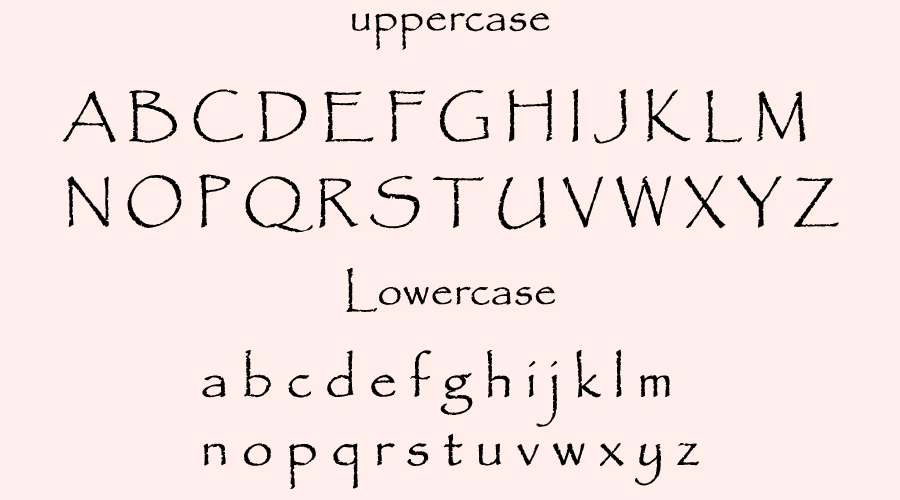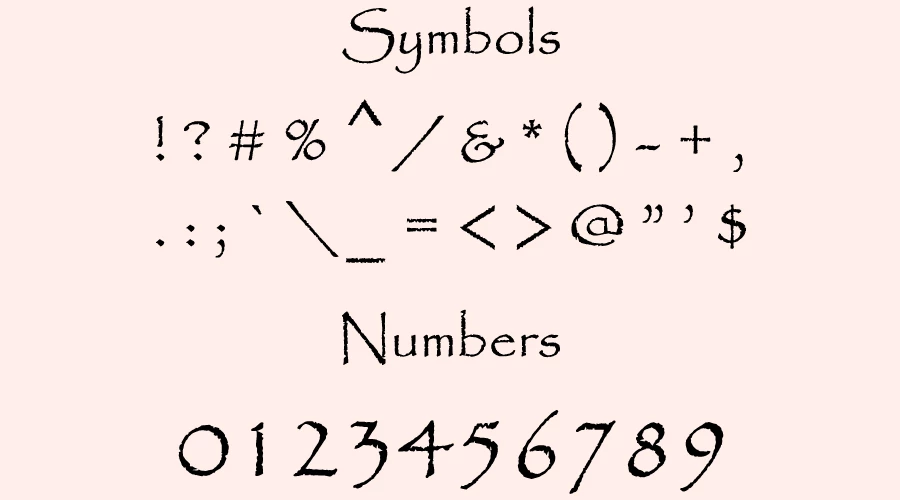
Today’s post will explain what papyrus font is. This popular roman typeface combines traditional roman letterforms with a highly skilled calligraphic look. Over the years, Papyrus has received much criticism for its overuse in graphic design and association with amateur design choices despite its ubiquitous presence. We will examine the history and characteristics of papyrus in this article. We’ll also look at its reception and use in popular culture, and what sets it apart from other font choices.
The History of Papyrus Font
Chris Costello, who was just 23 years old and fresh out of college, created Papyrus over a six-month period using a calligraphy pen and textured paper. He was inspired by his studies of the Bible. He also had the idea of what a font for English language texts would have looked like if written on papyrus 2000 years ago. The result was a highly distinctive and recognizable font that combined the elegance of a traditional Roman letterform with the hand-crafted look of highly skilled calligraphy. Costello sold the rights to Papyrus for just $750 and has since received “very low” royalty payments despite its inclusion on all personal computers using a Mac or Microsoft operating system.
The Characteristics of Papyrus
Papyrus is a calligraphy handwritten font. As a result of its rough edges, irregular curves, and horizontal strokes in its capitals, papyrus is well known for its unique appearance. This gives the font a distinctive, hand-written look that sets it apart from other traditional Roman letterforms. Despite its irregular appearance, Papyrus retains an elegant and refined sensibility, making it a valuable choice for many types of design projects.
What are some famous uses of the papyrus font?
This font can be used for book titles, posters, signs, and other places where the type will be large and highly visible. It can be used in film and historical-based television titles as well as merchandise.
Papyrus Use in Popular Culture And Controversy
Why do people not like papyrus? Despite its distinctive look, Papyrus has gained a reputation for being overused and misused in graphic design. It is especially evident in amateur and poor-quality design projects. This has led to criticism and ridicule, similar to the controversy surrounding the use of Comic Sans. A website named “Papyrus Watch” was even created to document the font’s ubiquity and misusage.
| Designer | Chris Costello |
| Classification | Handwritten, Calligraphy |
The Legacy of Papyrus
While Papyrus may have received its share of criticism over the years, it remains a timeless and versatile font that is still widely used and loved by designers. Whether you love it or hate it, there’s no denying the impact that Papyrus has had on the world of design. This is because it is one of the most recognizable typefaces of all time.
As a result, Papyrus is a unique and versatile typeface that has stood the test of time. Despite much criticism over the years, it remains one of the most popular and widely used fonts. You should definitely consider using Papyrus if you’re looking for a font that evokes a sense of history and tradition or simply want to stand out.
FAQs
What is the Papyrus font?
Ans: Papyrus is a calligraphy Handwritten font designed by Chris Costello.
What inspired the creation of the Papyrus font?
Ans: Chris Costello was inspired by his studies of the Bible and the idea of what a font for English language texts would have looked like if written on papyrus 2000 years ago.
Where has the Papyrus font been used?
Ans: The Papyrus font has been used in numerous TV show opening credits, including Medium and Eureka! It was also used in James Cameron’s blockbuster movie Avatar and is widely used in Shakira merchandise, as well as hookah bars and off-brand tea companies.
Did Avatar use the Papyrus font?
Ans: Yes, it was also used in James Cameron’s blockbuster movie Avatar.
Why is the Papyrus font controversial?
Ans: Despite its distinctive look, the Papyrus font has gained a reputation for being overused and misused in graphic design. This has led to criticism and ridicule from designers, similar to the controversy surrounding the use of Comic Sans.